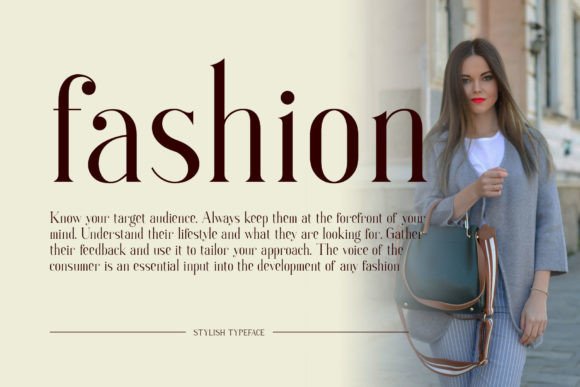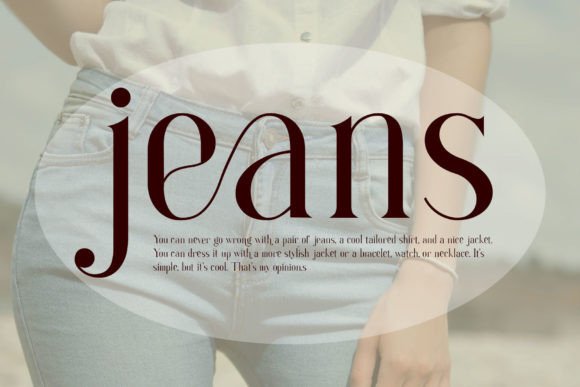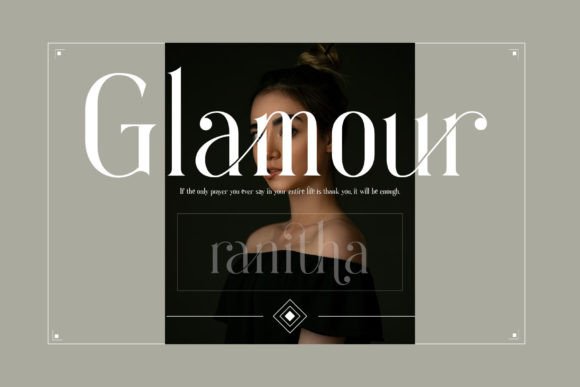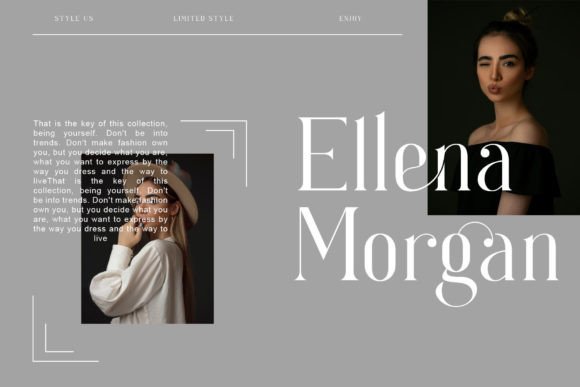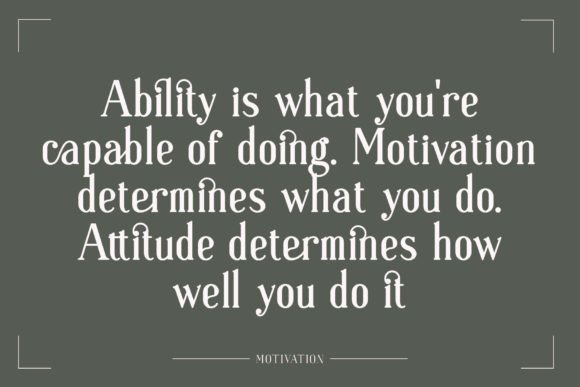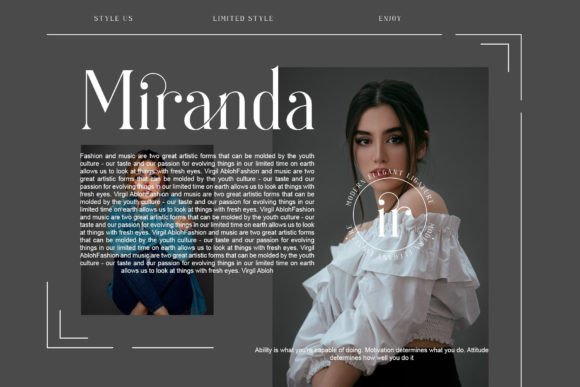
Introduction to Ranitha Font
Ranitha is an elegant, luxurious serif font.
Fall in love with its incredibly versatile style and use it to create gorgeous wedding invitations, beautiful stationary art, eye-catching social media posts, and much more .